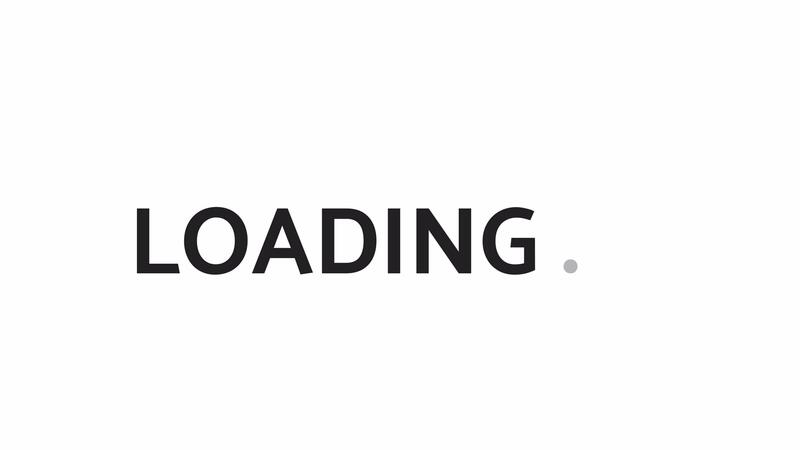
Boldface type black and white loading text animation. Catamaran Bold font used, monochromatic 2D cartoon 4K video loader motion graphic. Wait animation. Loading screen, animated uploader gif Pro Video